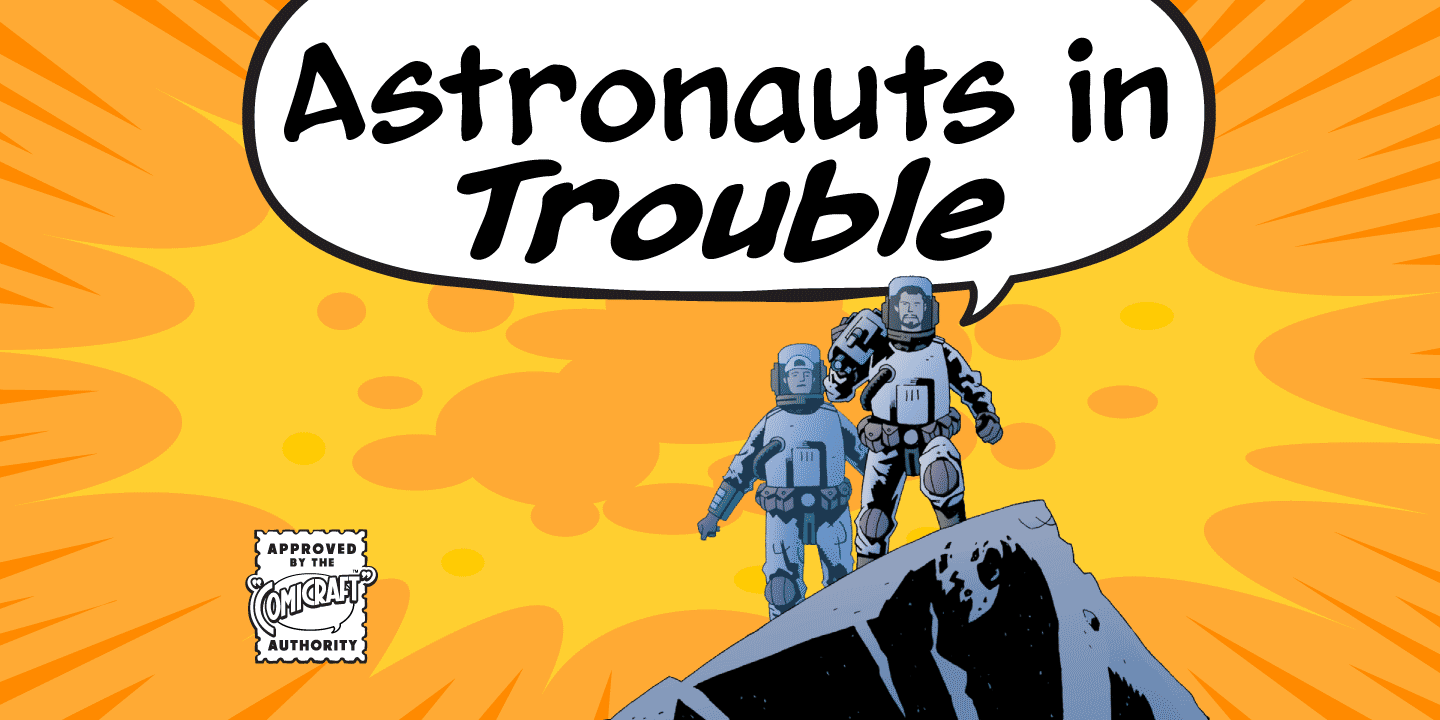
Designed by John Roshell, Astronauts In Trouble is a comic and hand drawn font family. This typeface has three styles and was published by Comicraft.
AiT/Planet Lar publisher and writer, Larry Young loves The Space Program. Next time you see him at a comic convention just ask him about any one of the Moon Landings and you’ll see. But he might not tell you about his secret love. His secret love… for Fonts. Especially… Comicraft fonts. “I really dig your fonts, guys” he had told us on many different occasions, and we would thank him for his interest and go about our business. Then one day his tone changed from that of casual admiration to one of unrequited love. Sheepishly he inquired: “Can I… Can I have a font all of my very own?” Fontmeister John JG Roshell was only too happy to comply. “Uh—can I have a font with upper AND lower case,” he added hastily. “It’s yours,” we told him. However, when he asked for each letter to be dressed in pink babydolls, we drew the line. We love fonts too, Larry, but Gee, you should get some therapy.